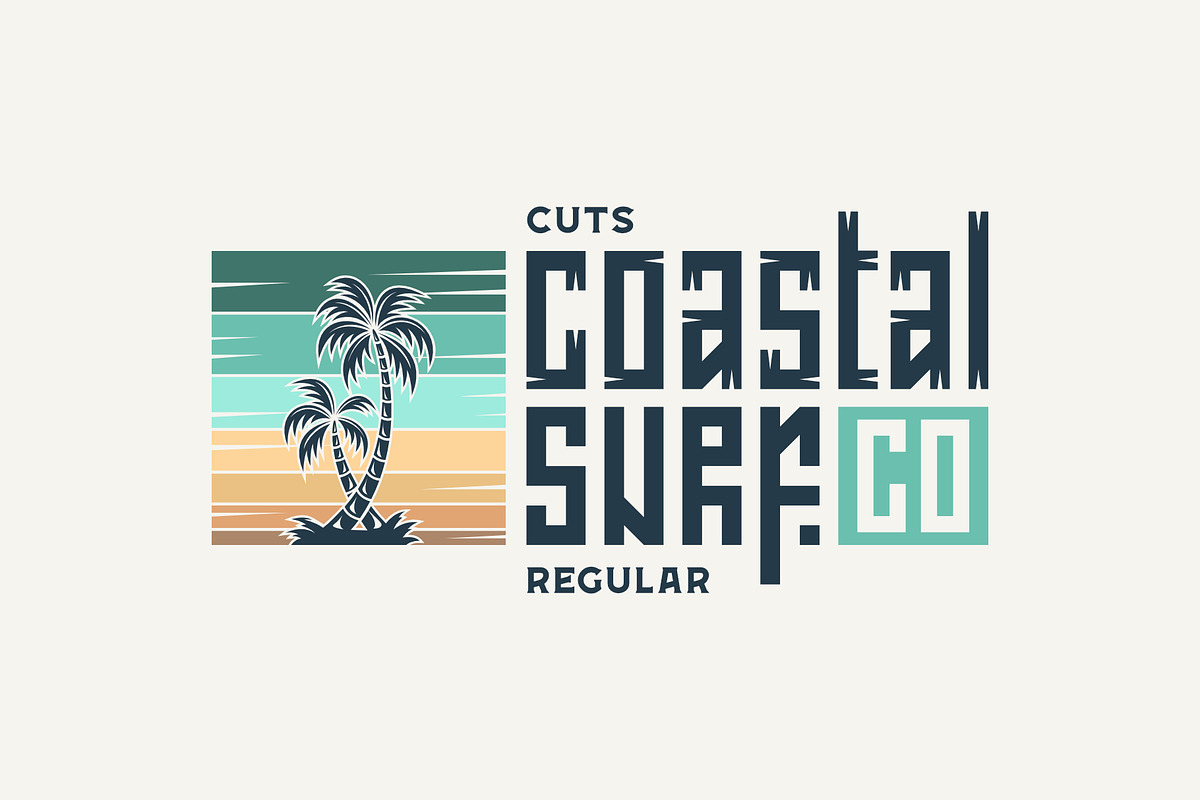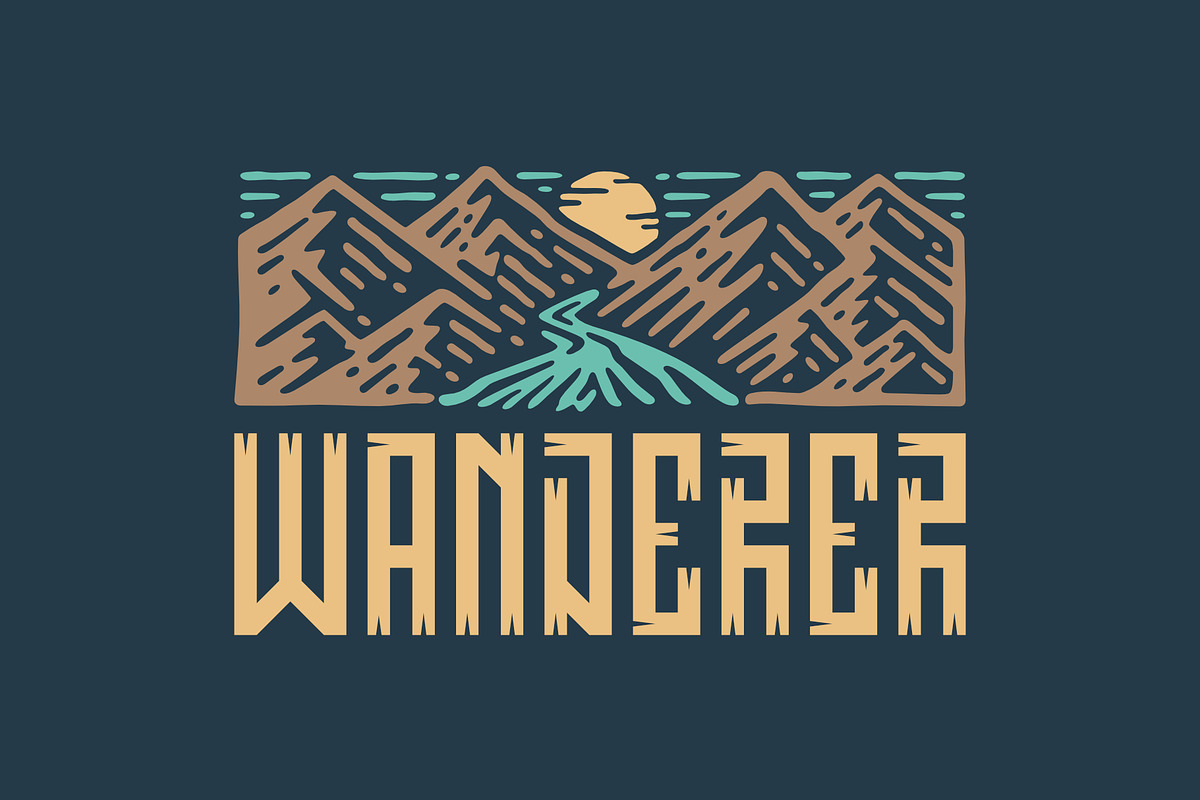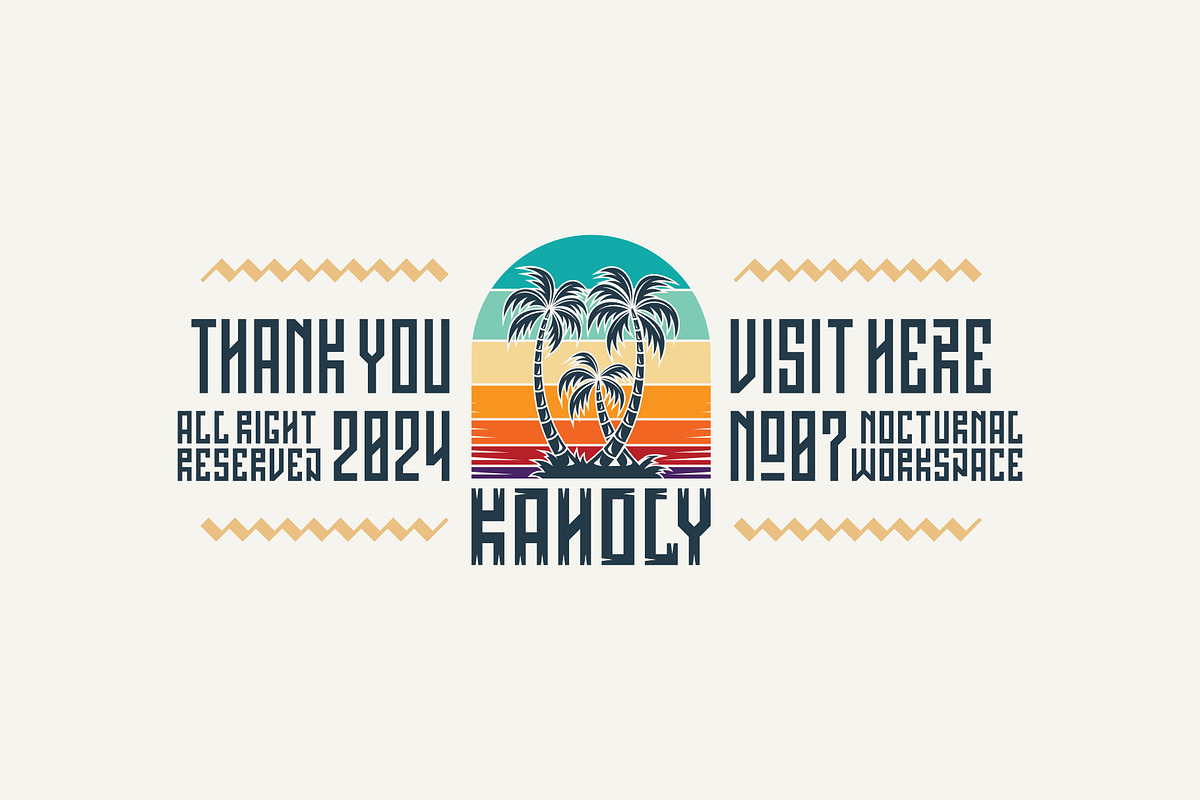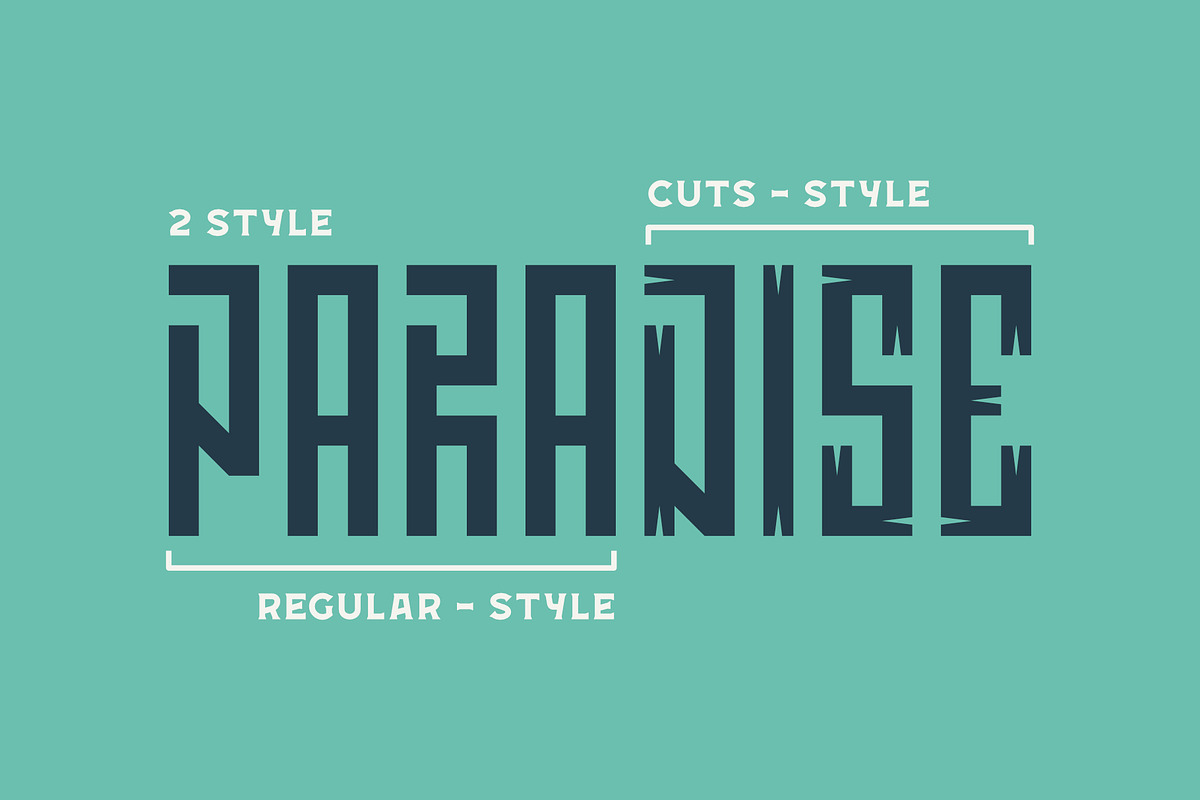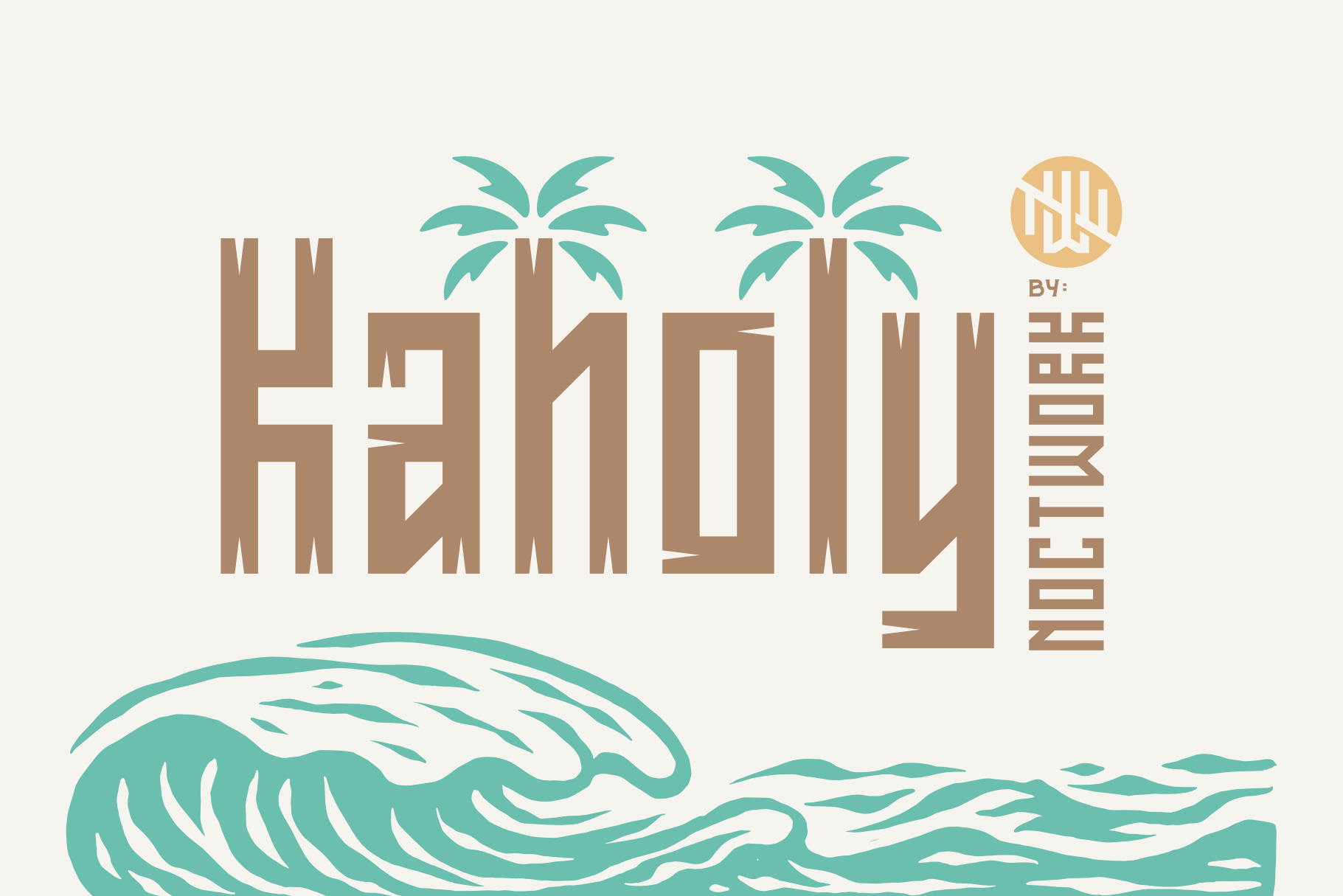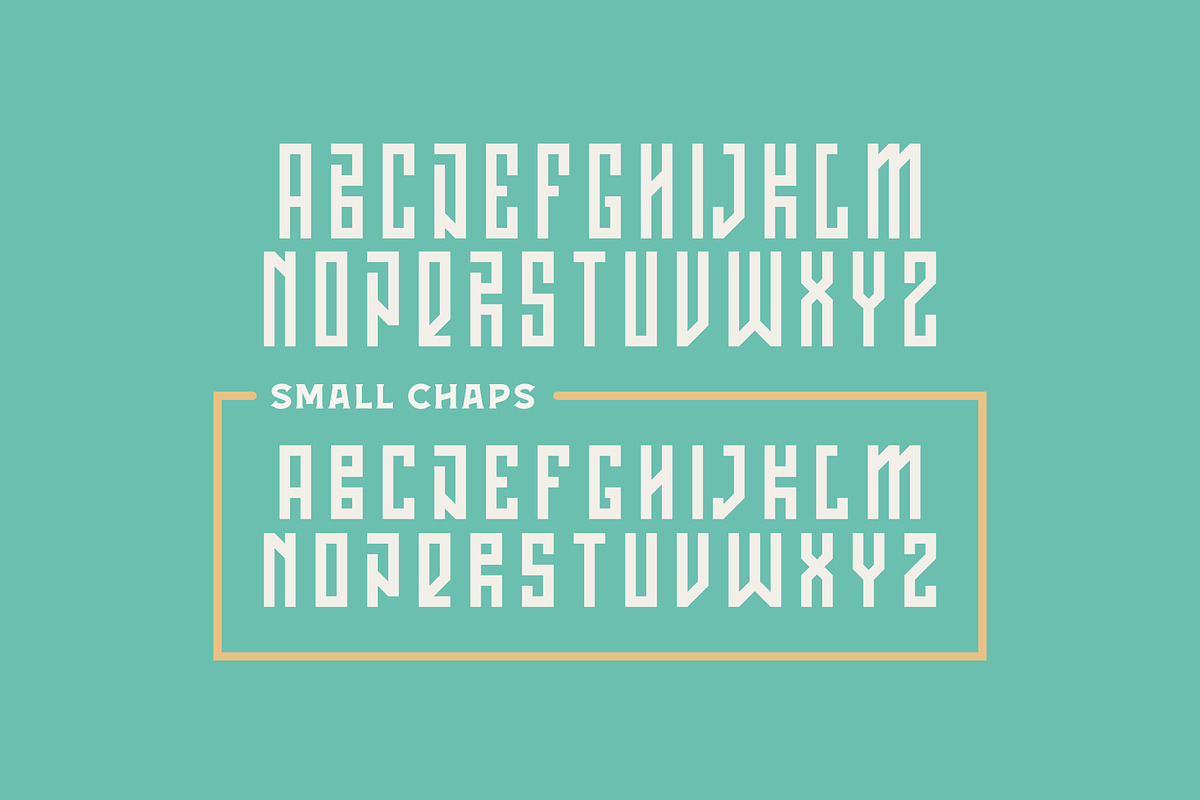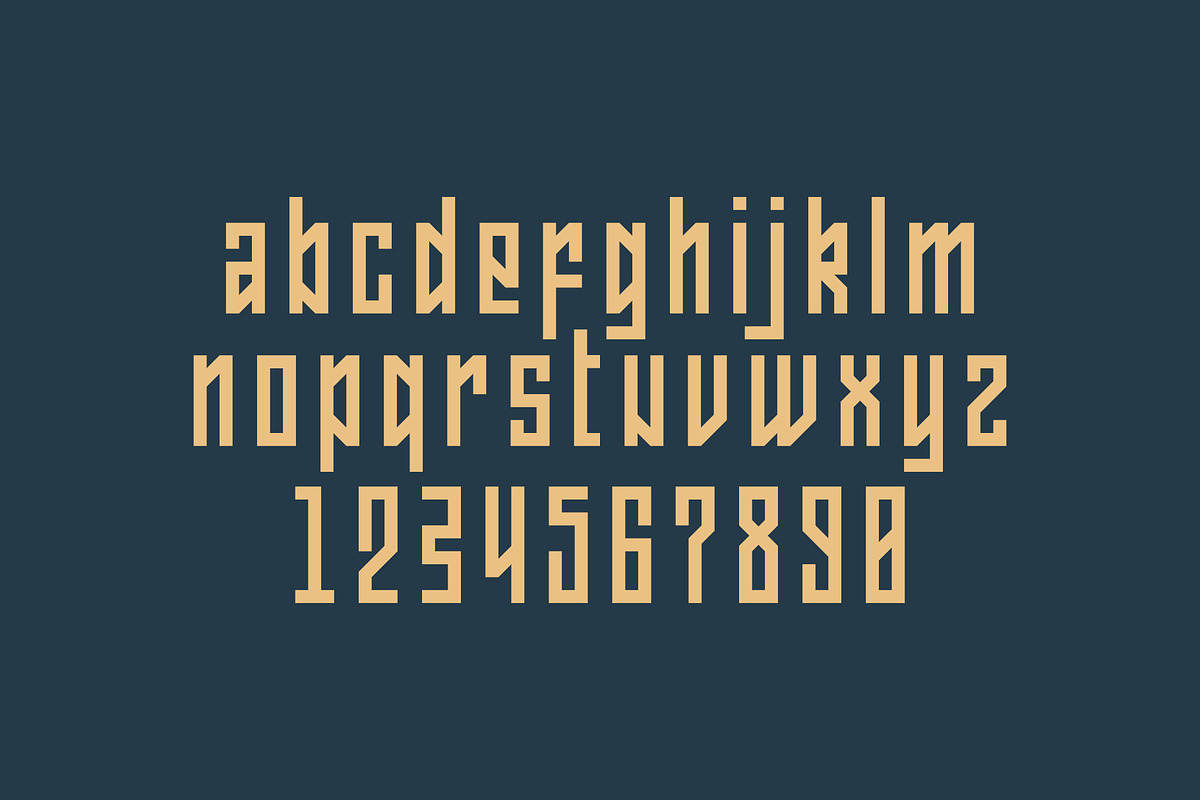
Kaholy Fonts
Kaholy is a font inspired by the beauty and culture of Hawaii. This font features a relaxed and friendly design with flowing and curved letter shapes, reminiscent of the gentle waves on Hawaiian beaches. Each character in Kaholy is meticulously designed to reflect Hawaiian elements such as traditional wood carvings, coconut leaf motifs, and beautiful hibiscus flowers.
This font is perfect for a variety of creative projects such as beach-themed party invitations, tourism posters, tropical product branding, and marketing materials that require an exotic and warm touch. Kaholy also includes various character variations, including uppercase, lowercase, numbers, and symbols, all designed to convey a relaxed yet elegant impression.
By using Kaholy, you can bring the tropical atmosphere and warmth of Hawaii into your designs, making it ideal for creating a pleasant and inviting ambiance.